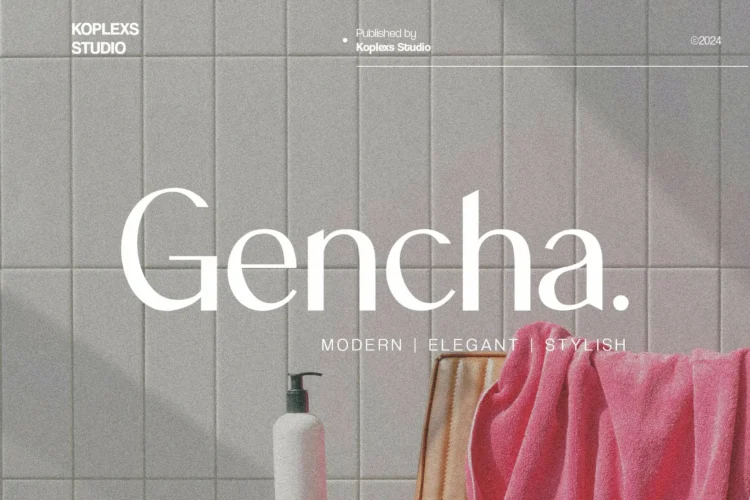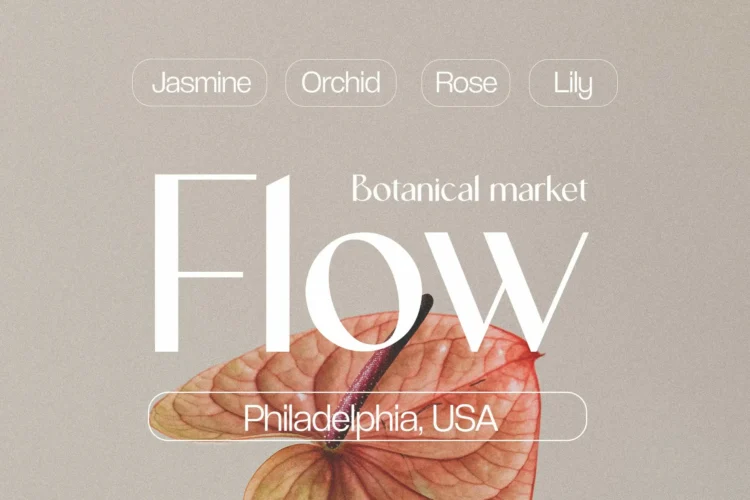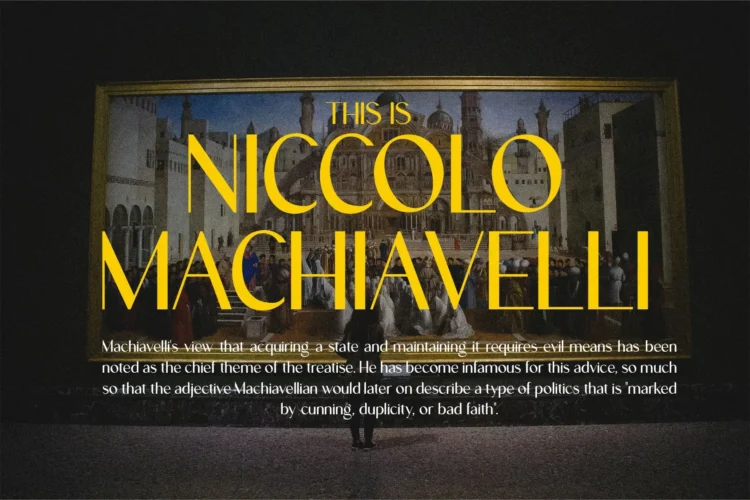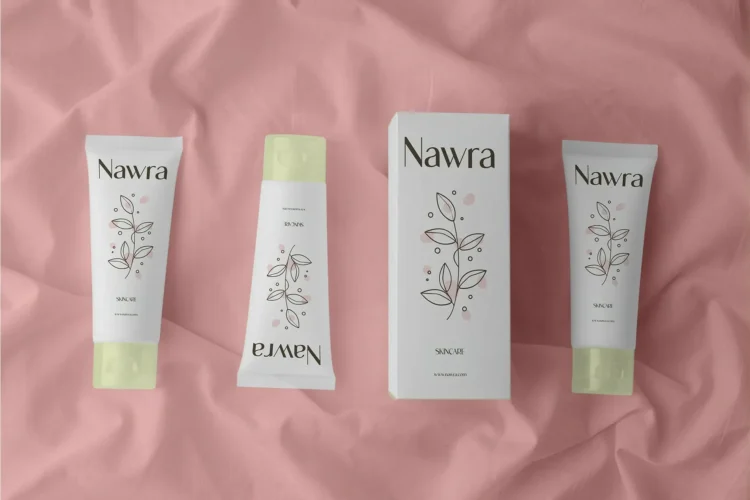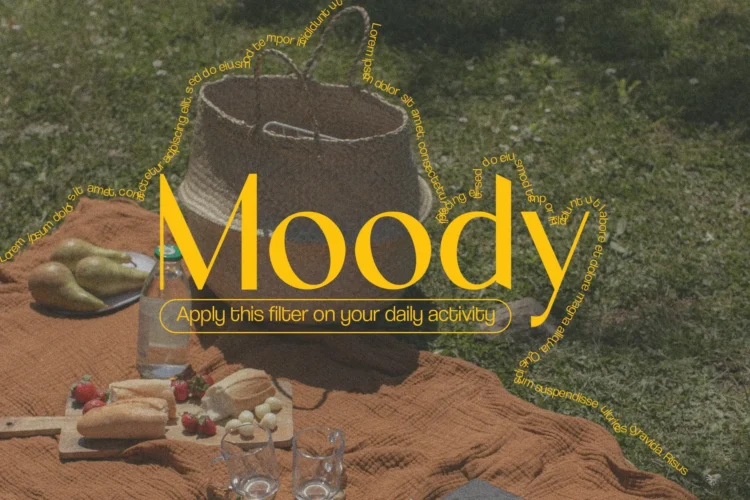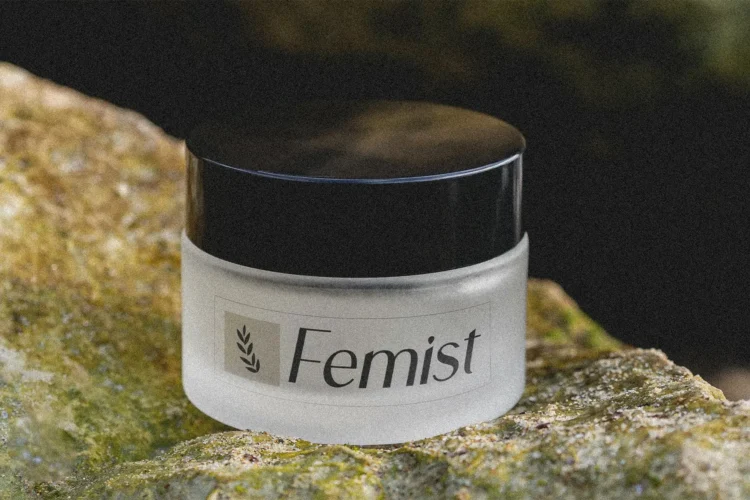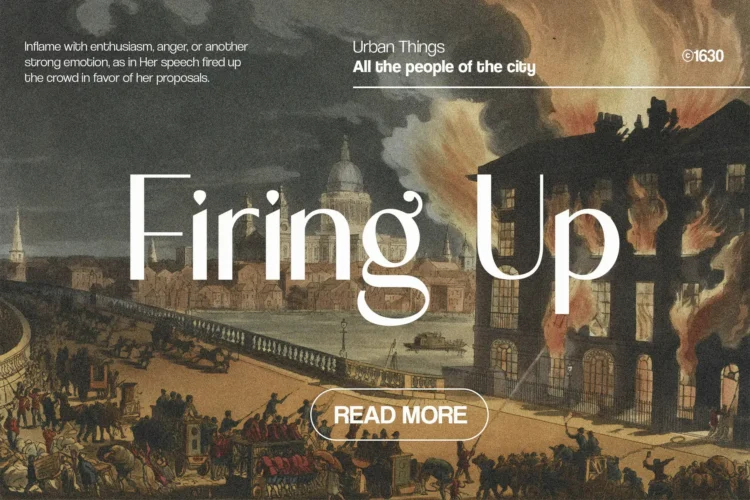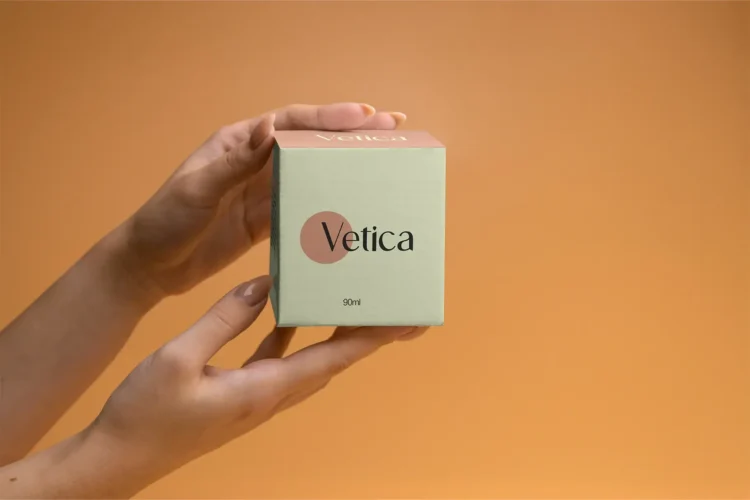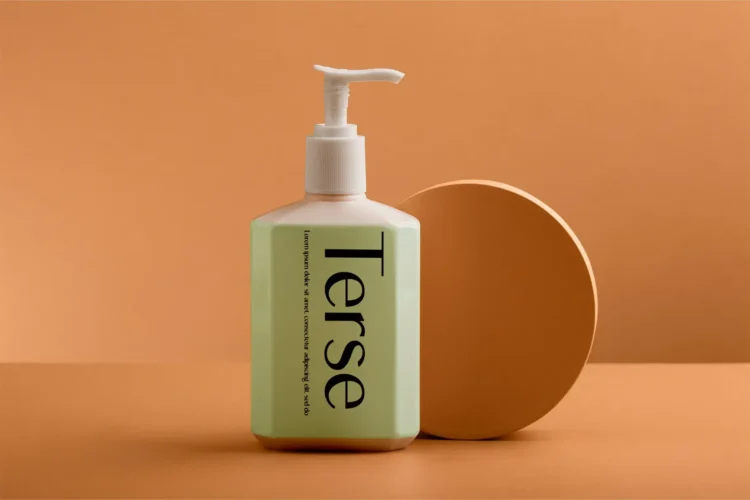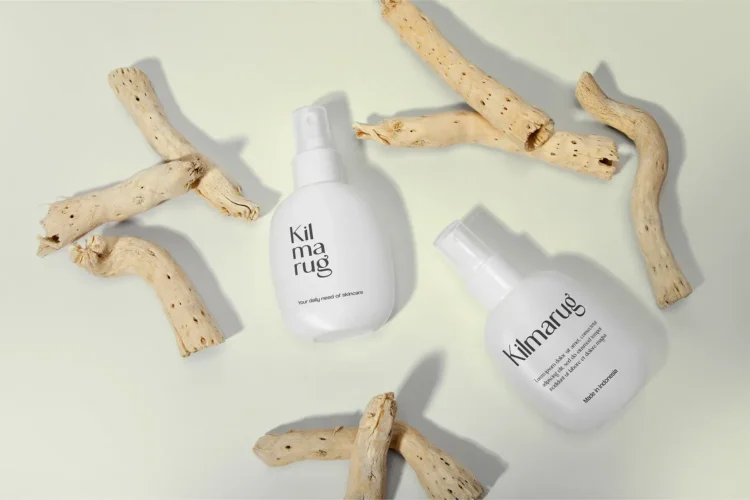
Gencha Font – Perfect Logo Font for Modern & Elegant Branding
Discover the timeless beauty of Gencha Font, a versatile sans serif font available in regular and italic styles. Designed with a perfect balance between modern minimalism and classic sophistication, Gencha offers everything you need to elevate your branding and creative projects.
As part of the new wave of modern fonts, this typeface stands out with clean lines, bold details, and smooth curves that make it a highly adaptable branding font. Whether you’re crafting a cosmetic font for product packaging, creating a polished logo font for your business, or designing a luxury brand identity, Gencha delivers an unforgettable aesthetic.
With both elegant font characteristics and strong bold font options, Gencha is perfect for impactful headline fonts and clear heading fonts. It also carries the refined qualities of a luxury font, making it ideal for upscale industries such as fashion, cosmetics, lifestyle, editorial, and high-end product branding.
Gencha Font Included :
- Alternates
- Ligatures
Gencha Font Perfect for :
Gencha Font is versatile and works beautifully for :
- Logos & Branding: A professional logo font for strong and stylish brand identity.
- Cosmetics & Beauty Products: A delicate yet bold cosmetic font for packaging and ads.
- Editorial & Magazines: Works seamlessly as a headline font and heading font.
- Luxury & Fashion Brands: A luxury font that embodies elegance and exclusivity.
- Digital & Social Media Design: A modern font for posts, websites, and campaigns.
- Advertising & Marketing: Perfect aesthetic font to captivate and influence audiences.
Gencha is not just another typeface it’s a design tool that blends the power of modern sans serif fonts with timeless elegance. Use it to create bold statements, stylish visuals, and luxurious designs.